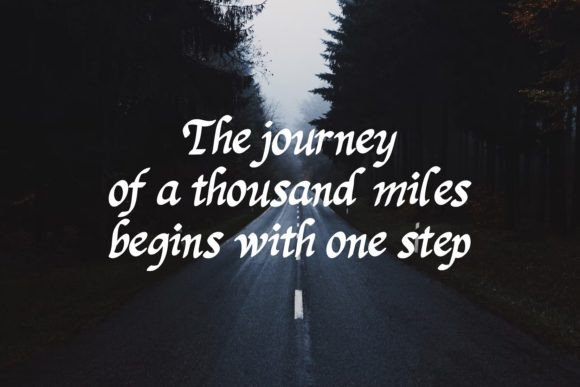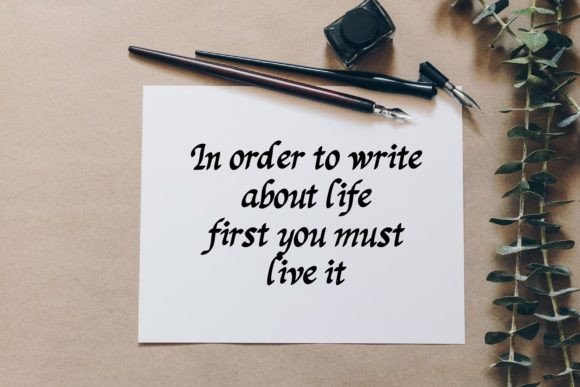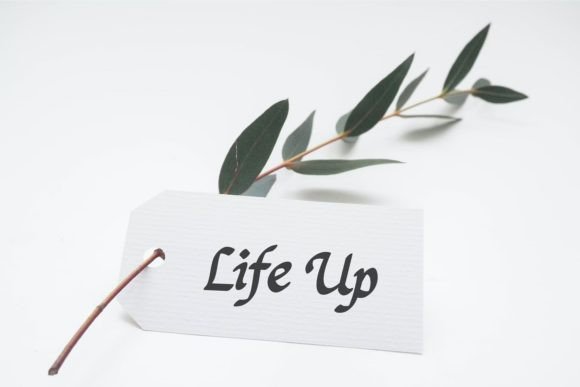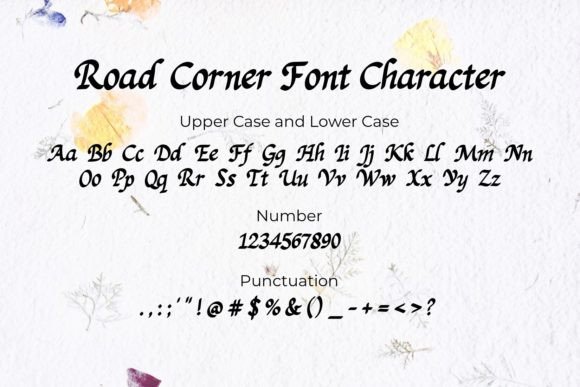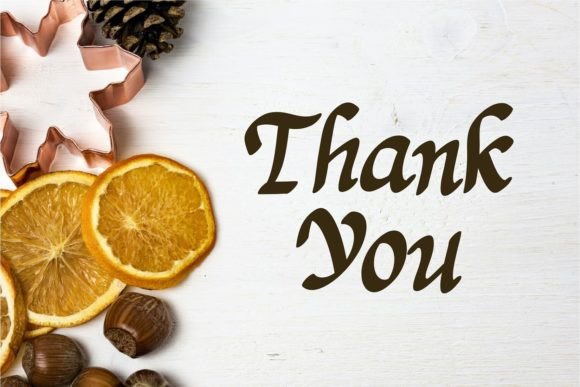
Introduction to Road Corner Font
Have you ever found yourself stuck in a creative rut, staring at a blank page, searching for the perfect font to bring your design to life? For designers, finding the right font can be the difference between a mediocre project and a masterpiece. That’s why we’re excited to introduce you to Road Corner Font, a high-quality, script handwritten font that’s perfect for any creative project.
With its unique, elegant style, Road Corner Font is a valuable resource for designers looking to add a personal touch to their work. Whether you’re working on a branding project, creating a wedding design, or simply need a font for social media posts, Road Corner Font is a versatile design resource that’s sure to impress. Plus, with a transparent background, you can easily overlay it on any image or design element.
Key Features of Road Corner Font
- Unique, eye-catching design perfect for adding a touch of modernity to any creative project
Honest Review: Road Corner Font
As a designer, I’ve had the pleasure of working with various fonts, but Road Corner Font has left a lasting impression on me. The high quality of this font is evident in its crisp lines and smooth curves, making it perfect for creative projects.
One of the standout features of Road Corner Font is its versatility. It’s suitable for a wide range of projects, from modern and sleek to vintage and distressed.
- Some users may find the font to be too playful or whimsical for certain projects.
- The font’s unique style may not be suitable for more formal or traditional designs.
To get the most out of the Road Corner Font, experiment with different font sizes, colors, and combinations. You can also use it in conjunction with other design elements to create a unique and visually appealing design.
The Road Corner Font is perfect for a variety of creative projects, including logos, graphics, social media posts, and presentations. Its high-quality design and transparent background make it a valuable resource for any designer or business owner.